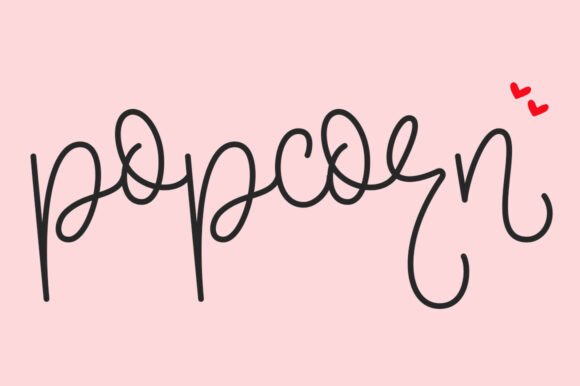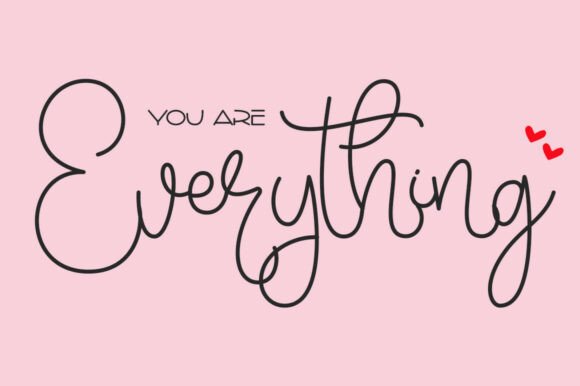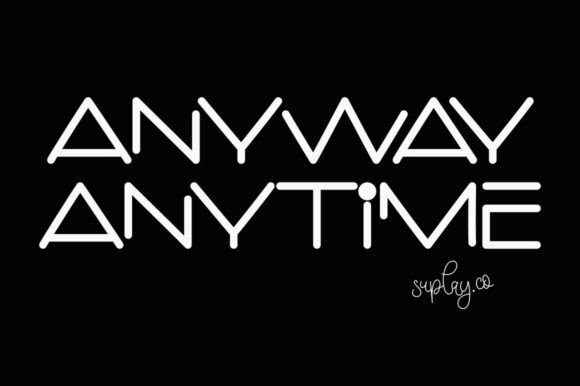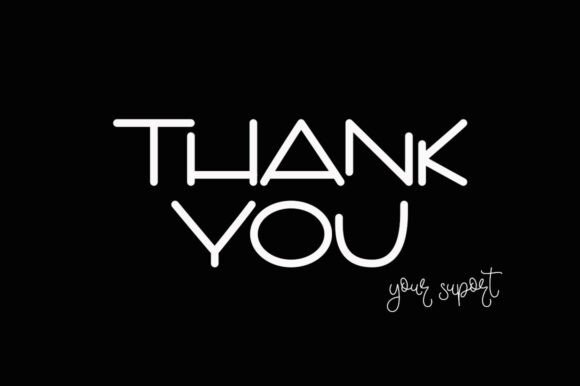
Introducing the Anyway Anytime Font Duo: A Perfect Blend of Modern Tech and Handwritten Charm
In the world of typography, finding the right font pair can elevate your design from ordinary to extraordinary. For designers and crafters looking for a versatile and stylish duo, the Anyway Anytime Font Duo is an excellent choice. This dynamic pair seamlessly blends modern technology with handwritten charm, offering the perfect contrast of bold and soft, structured and sweet.
The First Font: A Playful Handwritten Script
The first font in the Anyway Anytime Font Duo is a playful, handwritten script that exudes warmth and personality. With its fluid strokes and whimsical feel, this font is ideal for designs that require a touch of personality and charm. Whether you’re creating invitations, quotes, or lifestyle content, this font brings a sense of approachability and friendliness that resonates with audiences.
Imagine using this font for a wedding invitation, a social media post, or a blog article. The handwritten script adds a personal touch, making the content feel more relatable and engaging. The font’s playful nature also makes it perfect for designs that require a bit of whimsy, such as children’s books, educational materials, or even packaging design.
The Second Font: A Sleek Geometric Style
The second font in the Anyway Anytime Font Duo takes a different approach, featuring a sleek, geometric style with clean lines and a futuristic flair. This font is perfect for designs that require a sense of modernity and sophistication, such as branding, logos, and digital media.
The geometric style of this font gives it a professional and cutting-edge look, making it ideal for tech startups, innovative companies, or forward-thinking designers. The clean lines and minimalist approach also make it versatile, allowing it to work well in a variety of contexts, from digital interfaces to print materials.
The Power of Contrast: Why the Anyway Anytime Font Duo Works
So, why does the Anyway Anytime Font Duo work so well together? The answer lies in the contrast between the two fonts. The playful, handwritten script and the sleek, geometric style may seem like an unlikely pair, but they complement each other perfectly.
The bold and modern feel of the geometric font provides a striking contrast to the soft and whimsical nature of the handwritten script. This contrast creates visual interest and adds depth to your designs, making them more engaging and dynamic.
Moreover, the versatility of the Anyway Anytime Font Duo makes it easy to use in a variety of design contexts. Whether you’re working on a branding project, a website, or a social media campaign, this font duo can adapt to your needs.
Design and Crafting Applications
The Anyway Anytime Font Duo is suitable for a wide range of design and crafting applications. Here are a few examples:
- Invitations and Stationery: Use the handwritten script font for wedding invitations, birthday cards, or social media graphics.
- Branding and Logos: Combine the geometric font with the handwritten script to create a unique and memorable brand identity.
- Digital Media: Use the geometric font for website headers, social media posts, or digital advertising.
- Crafting and DIY: The Anyway Anytime Font Duo is perfect for crafters who want to add a personal touch to their projects, such as handmade cards, scrapbooking, or iron-on designs.
| Author | Fillo Graphic |
In conclusion, the Anyway Anytime Font Duo is a versatile and stylish pair that can elevate your designs to the next level. With its perfect blend of modern technology and handwritten charm, this font duo offers the ideal contrast of bold and soft, structured and sweet.
Whether you’re a designer, crafter, or DIY enthusiast, the Anyway Anytime Font Duo is an excellent choice for any project. So, why settle for ordinary fonts when you can create something extraordinary with this dynamic duo?